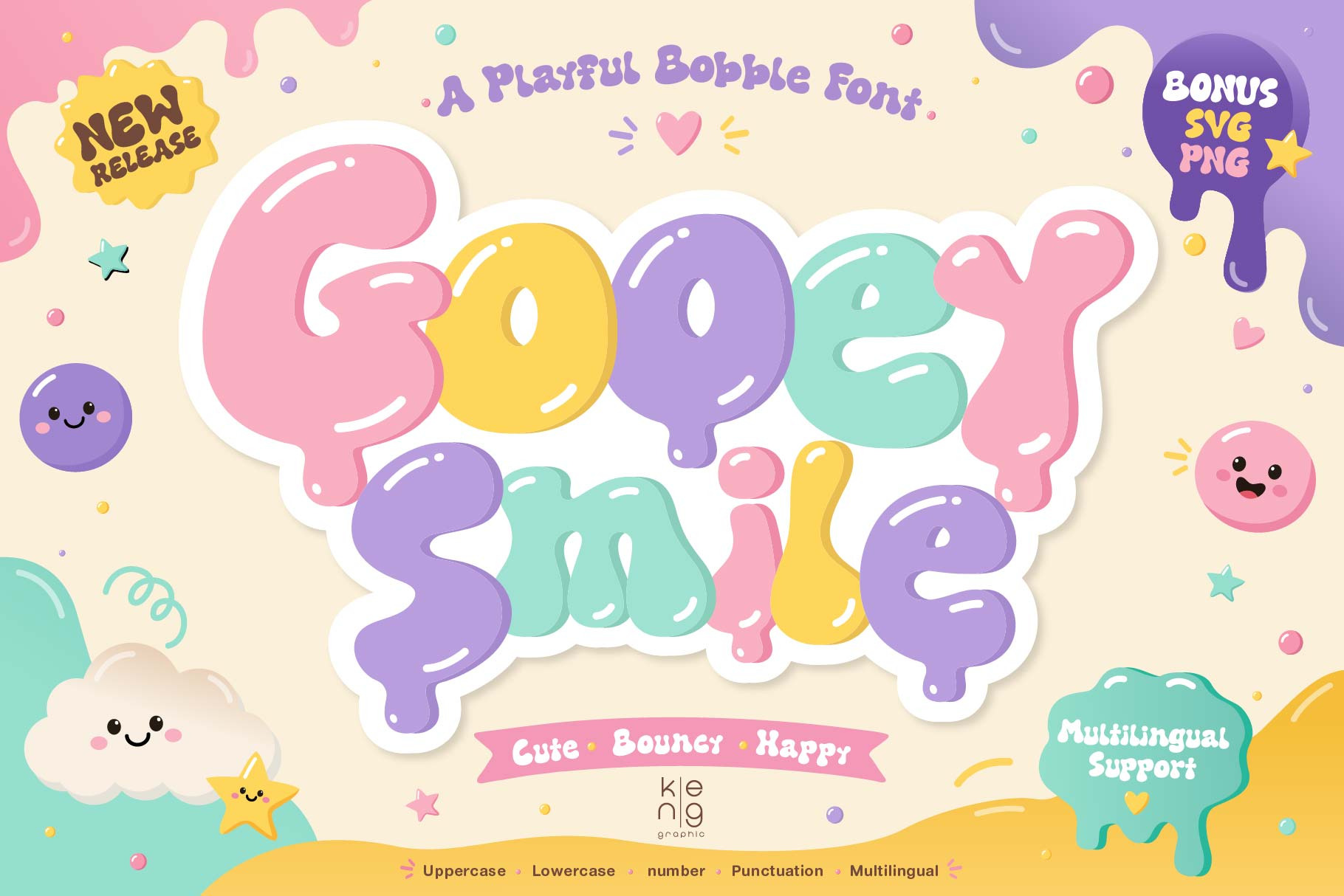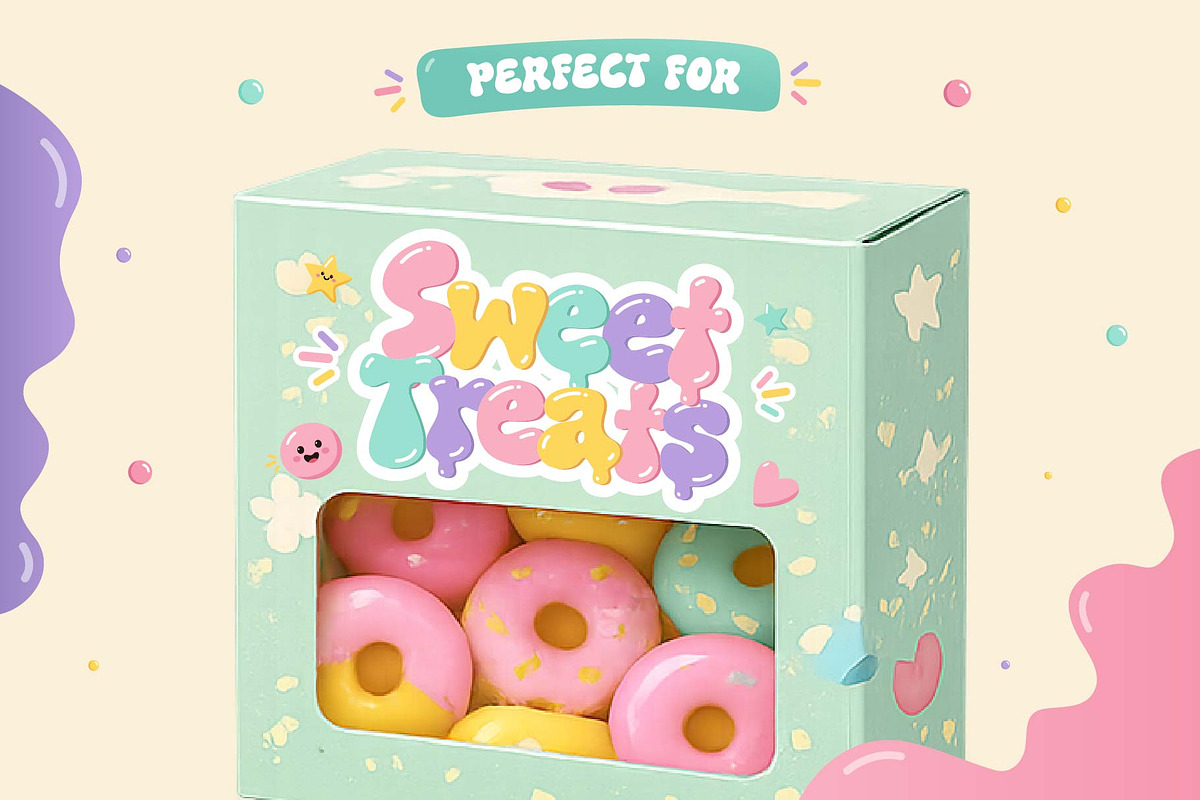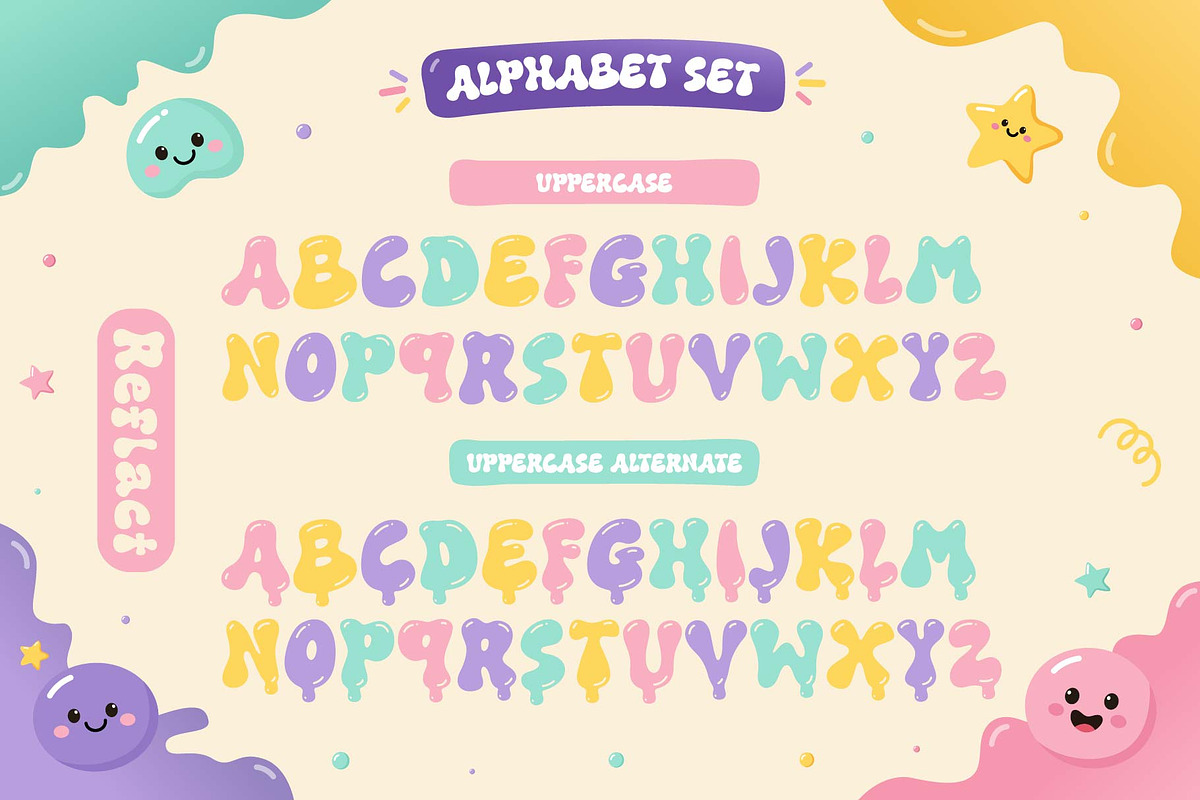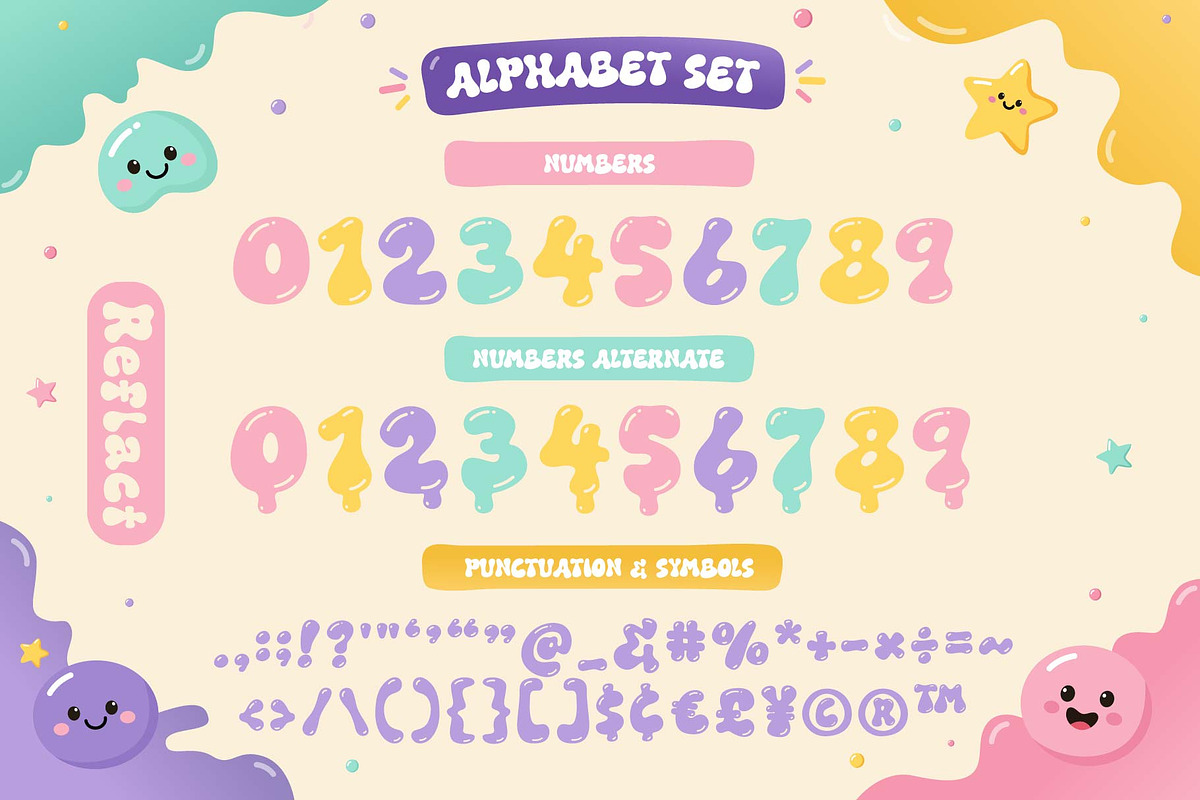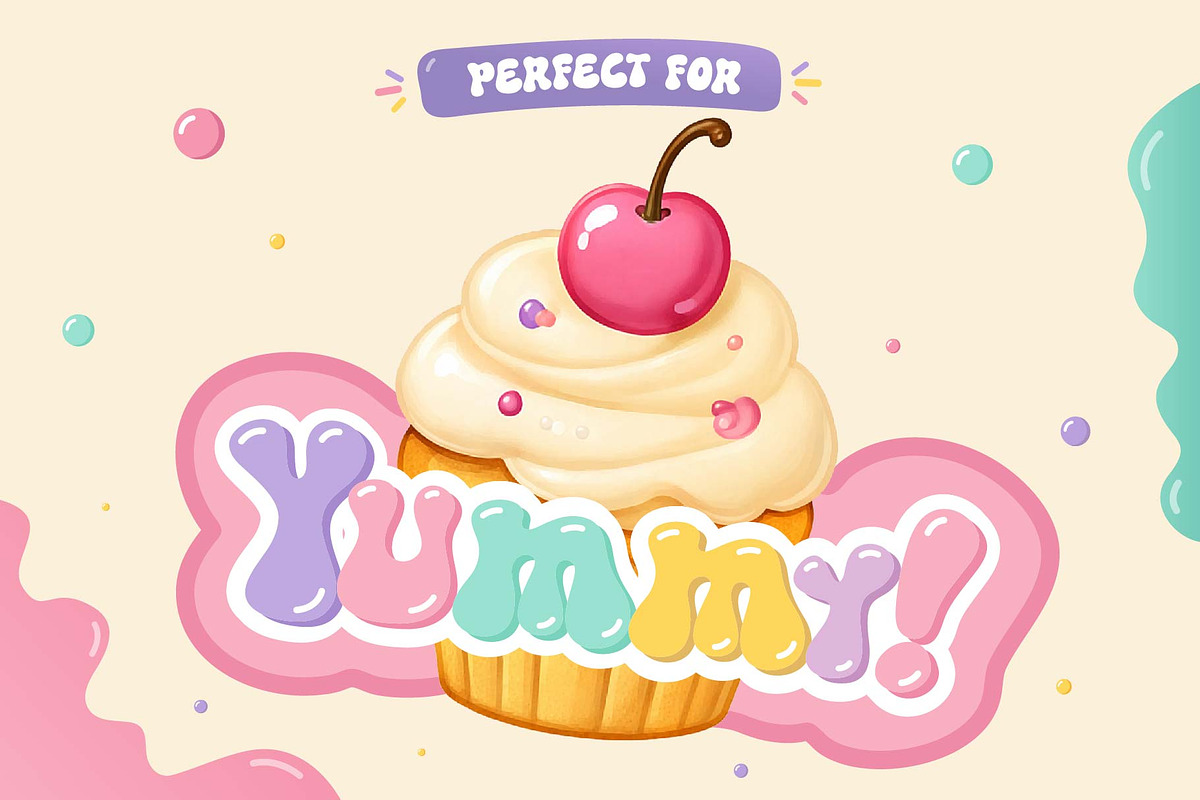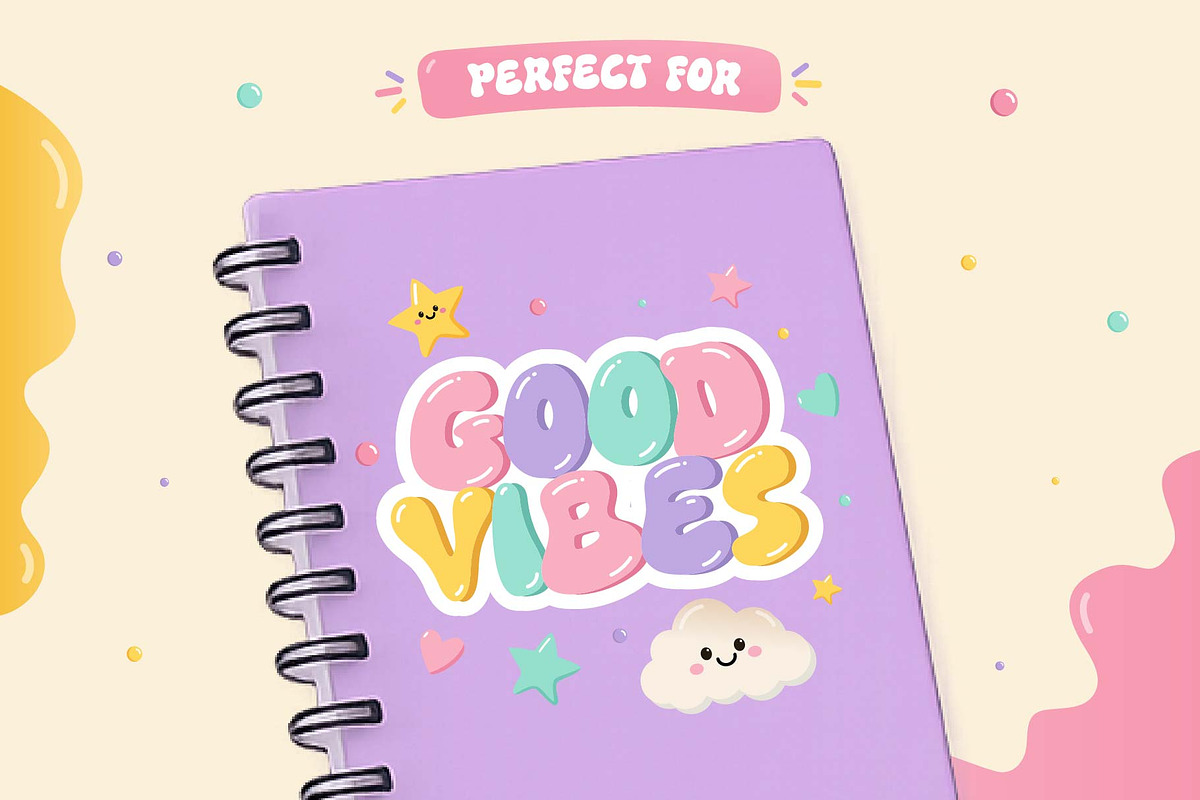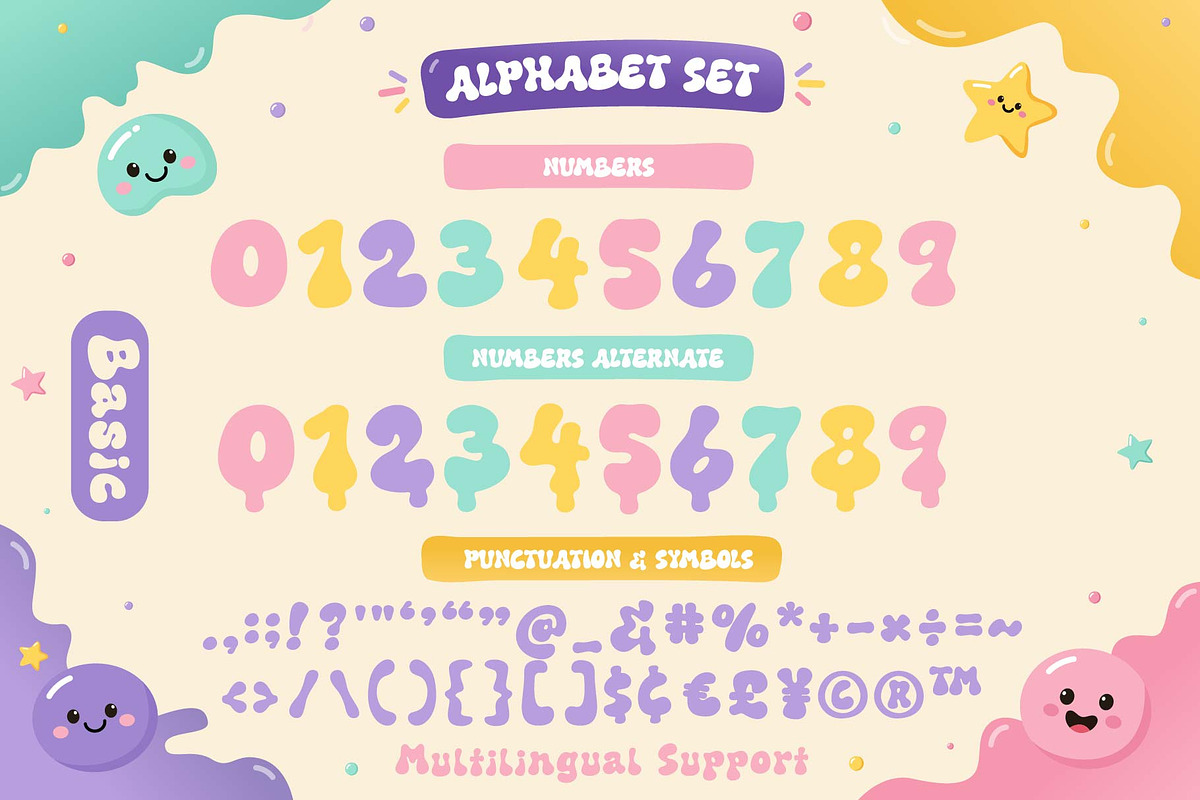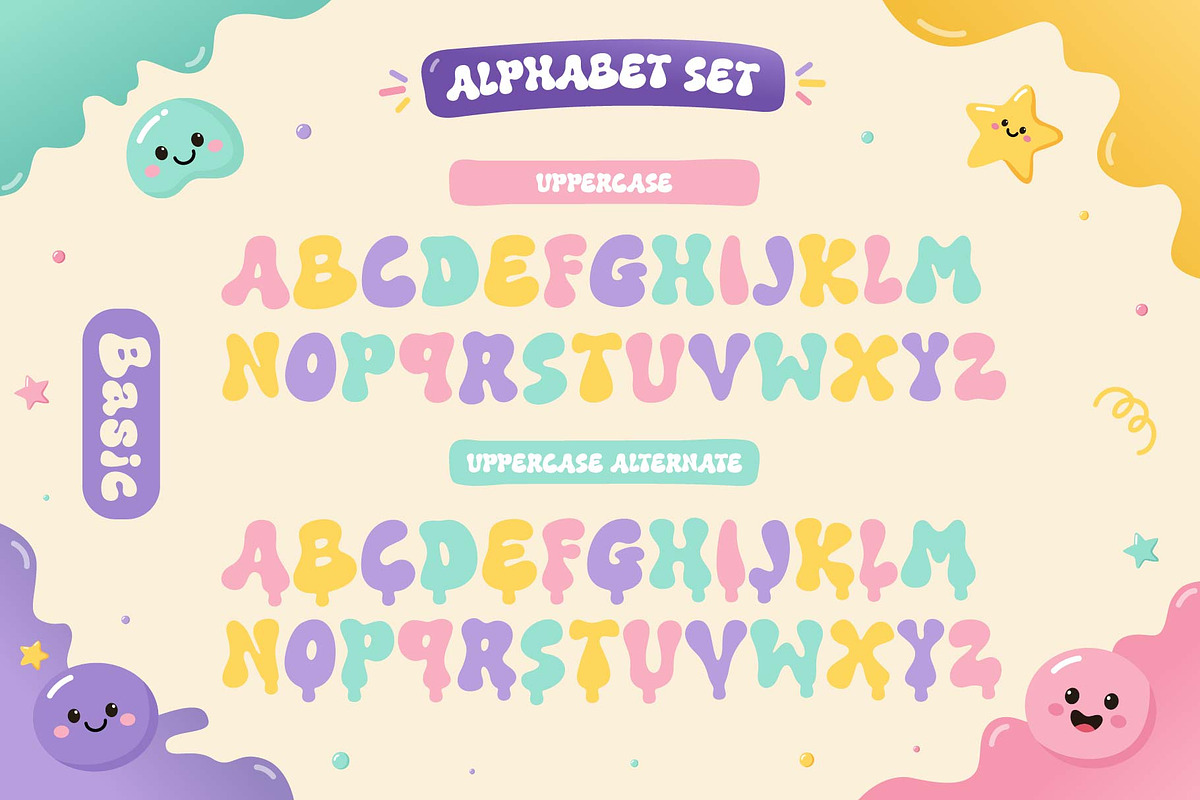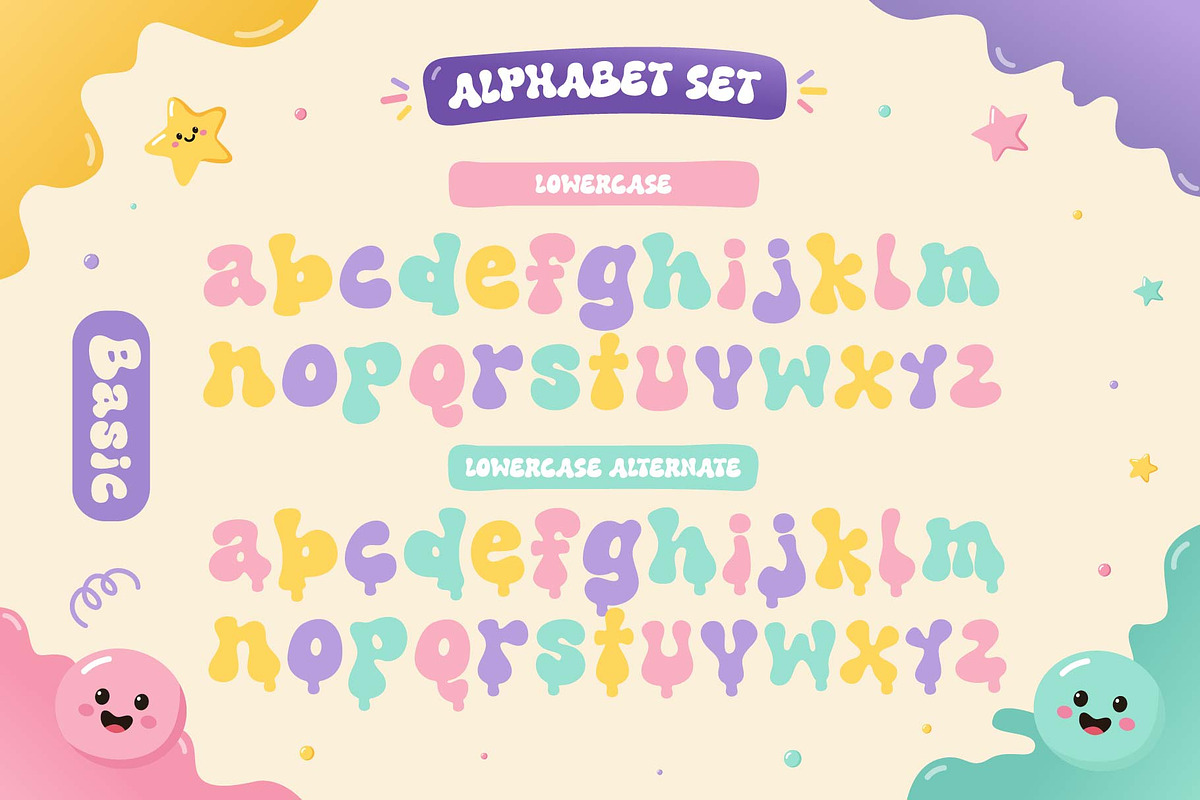
Gooey Smile Font
Immerse in the endearing appeal of Gooey Smile, a joyfully effervescent typeface that emanates sunshine, enthusiasm, and uplifting vibes. Mirroring the blissful simplicity through its polished and lively style, this font enchants with its harmonious rounded contours and bewitching “liquified” influence. It invigorates children-themed designs, morphs stickers into irresistibly adorable highlights, and infuses a spark of merriment to packaging, t-shirts, posters, as well as online platforms such as social media. Yet, Gooey Smile isn’t purely about stunning visual appeal; it upholds practical use as well.